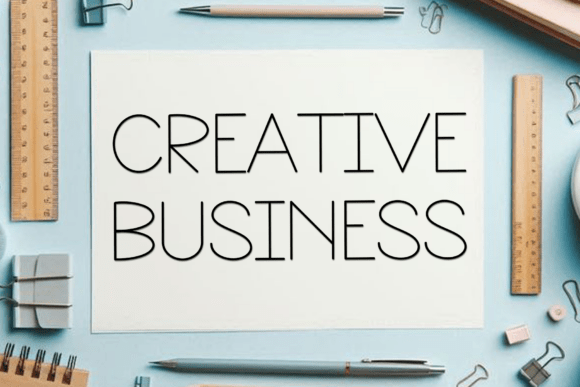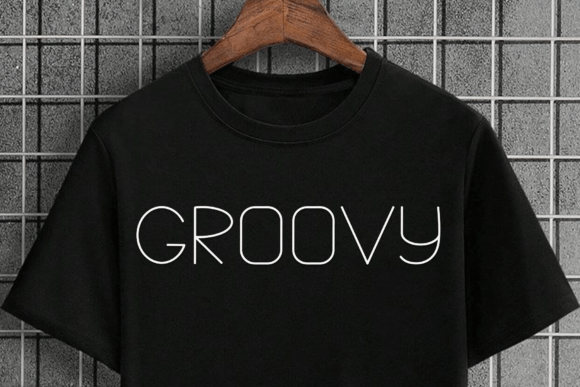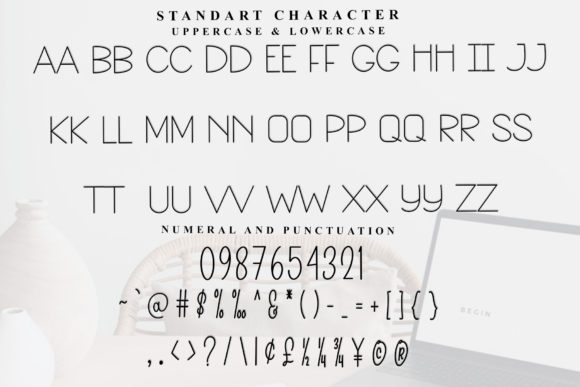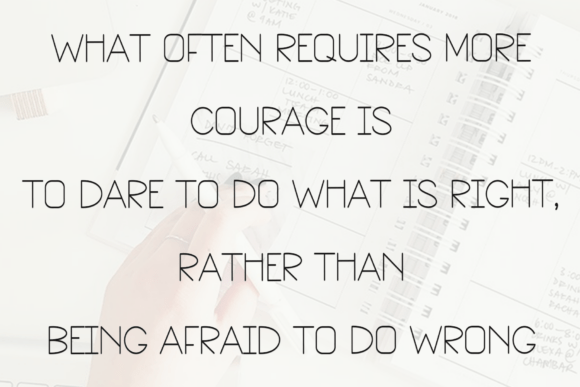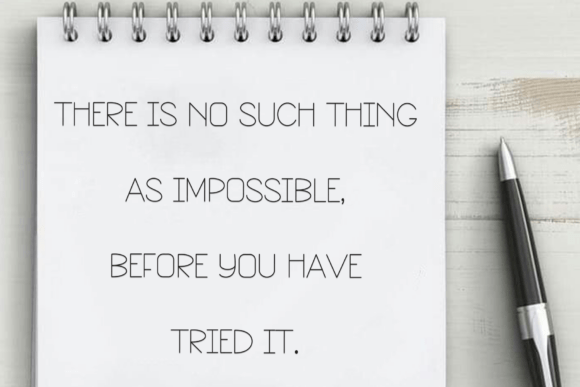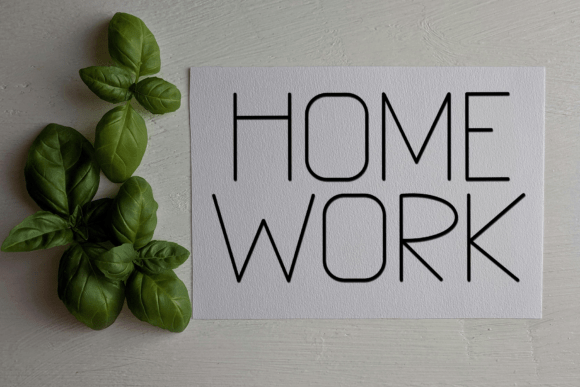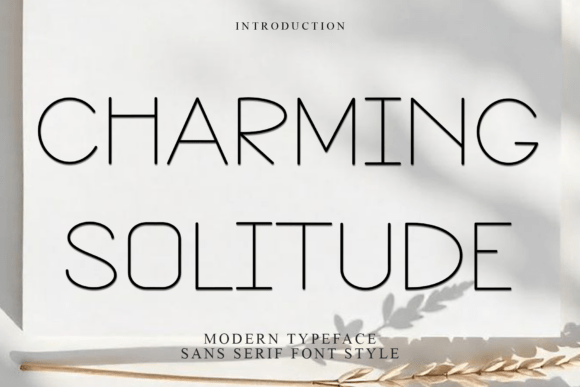
Introducing Autumn Sunrise Font: Elevate Your Designs with a Unique Touch
Are you tired of using the same old fonts in your design projects? Look no further! Autumn Sunrise Font is a beautiful and eye-catching font that is sure to take your creations to the next level. Designed with a soft, unique touch, this font is perfect for designers, crafters, and artists looking to add a special something to their work.
A Font that Stands Out from the Rest
Autumn Sunrise Font boasts distinctive strokes that give it a special character, making it meaningful and versatile for future use. Its unique design makes it perfect for a wide range of projects, from design and crafts to other creative works. Whether you’re working on a logo, brochure, or social media graphics, this font is sure to make your designs stand out from the crowd.
Endless Possibilities with Various Characters
One of the best things about Autumn Sunrise Font is its wide range of characters. With a variety of letters, numbers, and symbols to choose from, you’ll be able to create unique and eye-catching designs that will capture the attention of your audience. From bold statements to subtle details, this font has got you covered.
Whether you’re a professional designer or a crafter, Autumn Sunrise Font is the perfect addition to your toolkit. Its natural font style is ideal for a wide range of products, from branding materials to DIY projects. With this font, you’ll be able to create designs that are not only visually appealing but also meaningful and engaging.
Enhance Your Designs and Appeal to a Wide Audience
Autumn Sunrise Font is designed to enhance your designs and appeal to a wide audience across different artistic and creative fields. Its unique touch and soft character make it perfect for designs that require a personal and creative approach. Whether you’re working on a project for a client or creating something for personal use, this font is sure to impress.
Key Features of Autumn Sunrise Font
- Unique and eye-catching design
- Soft and natural font style
- Distinctive strokes for a special character
- Wide range of characters
- Ideal for design projects, crafts, and other creative works
In conclusion, Autumn Sunrise Font is a beautiful and versatile font that is perfect for designers, crafters, and artists looking to add a unique touch to their work. With its distinctive strokes, wide range of characters, and compatibility with various applications, this font is sure to enhance your designs and appeal to a wide audience. So why wait? Try Autumn Sunrise Font today and take your designs to new heights!